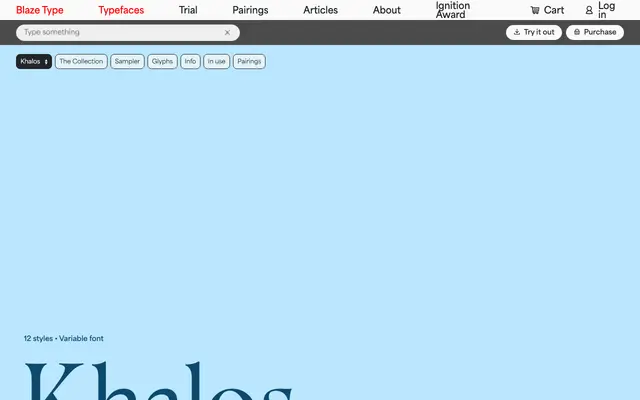
Khalos
Blaze Type · Matthieu Salvaggio, Léon Hugues · 2025
A high-contrast display serif with long spiky serifs, originally conceived from a 2002 Ultima Online roleplaying shard and later expanded into a full variable family.
Twelve styles run from Regular to Black with true italics throughout, available as a variable font. The design bridges historical calligraphic ductus with a contemporary approach to width rhythm, producing letterforms suited to posters, book covers, website headers and video game interfaces. Its barbed, high-contrast character makes it a poor choice for body text but a distinctive one at large sizes.
Long spiky serifs with high contrast round shapes place Khalos firmly in the display serif category; it is explicitly designed for headlines and large sizes, not continuous text.